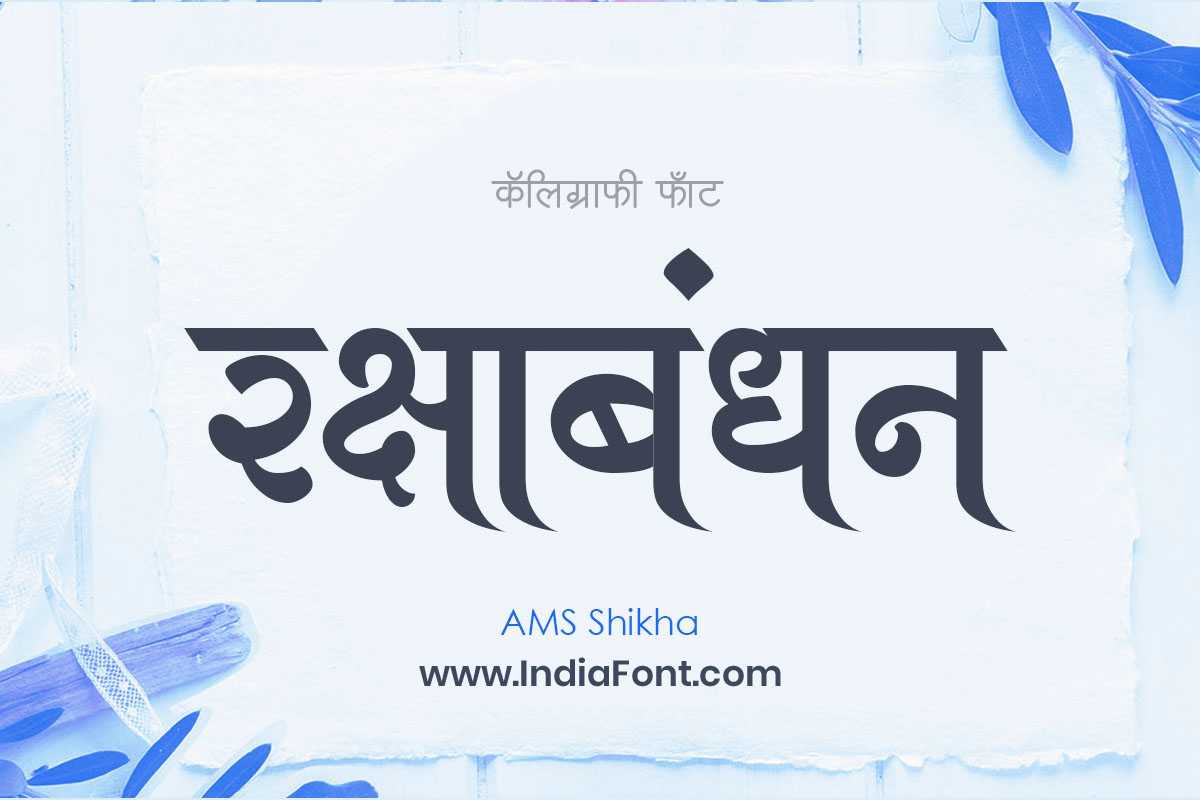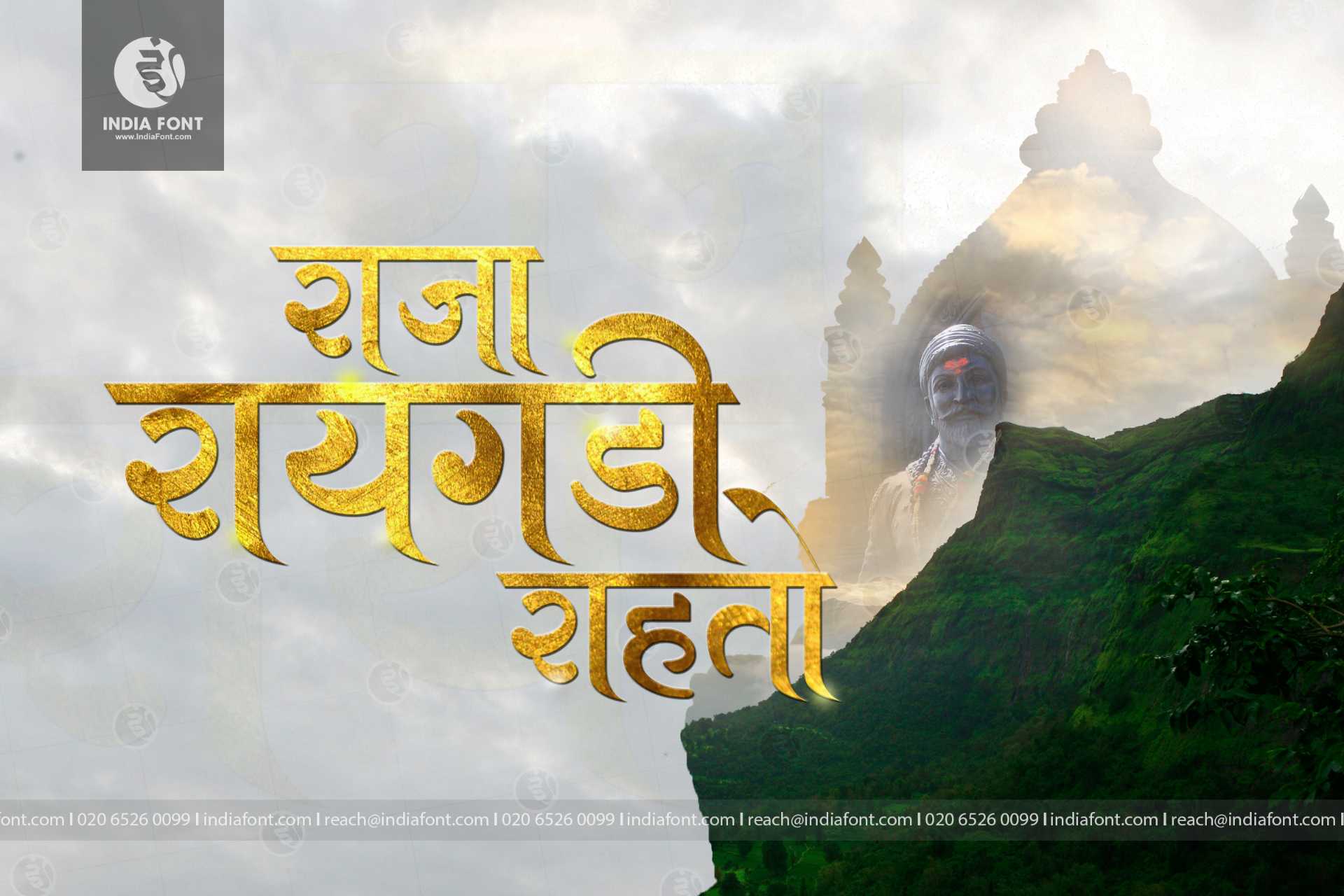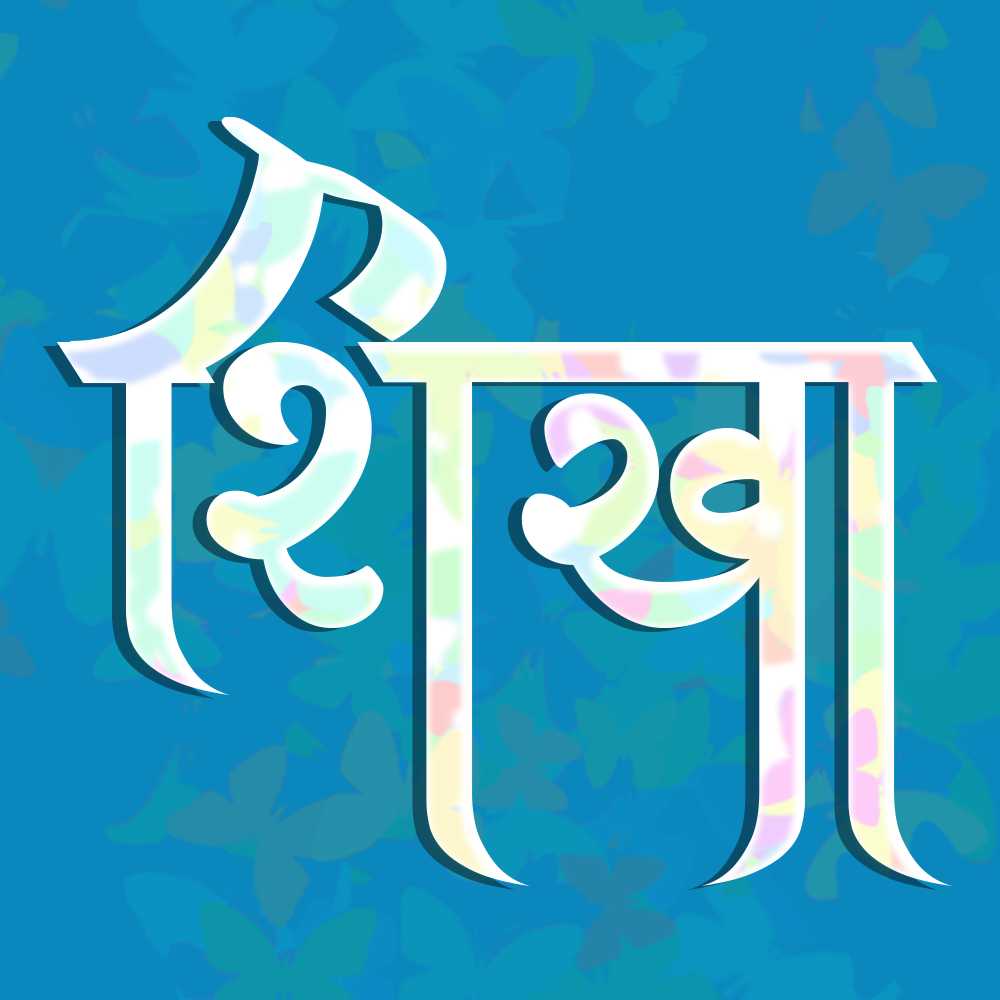
AMS Shikha
Experience the clarity and legibility of AMS Shikha, a publication font designed to deliver a seamless reading experience. Whether you're searching for stylish Hindi fonts, publication fonts suitable for magazines, or fonts available for free font download, AMS Shikha ensures your content stands out.
AMS Shikha Design Inspiration
Explore how AMS Shikha looks in real-world applications and get inspired for your next project
AMS Shikha font design inspiration and usage example
AMS Shikha typography showcase and design sample
AMS Shikha font application and style demonstration
About AMS Shikha Font
Experience the clarity and legibility of AMS Shikha, a publication font designed to deliver a seamless reading experience. Whether you're searching for stylish Hindi fonts, publication fonts suitable for magazines, or fonts available for free font download, AMS Shikha ensures your content stands out. This publication font combines elegance with functionality, making it perfect for various design applications.
AMS Shikha is a professionally crafted publication typeface that brings clarity and style to your projects. Designed with attention to detail, it supports hindi and marathi characters flawlessly.
Whether you're working on headers-titles, logos, posters, or other creative projects, AMS Shikha delivers consistent performance across both digital and print media. This carefully designed typeface ensures readability and visual appeal in all your design work.
Why Choose AMS Shikha?
AMS Shikha excels in various design scenarios. Here are the most suitable applications:
About AMS Shikha Typography Style
AMS Shikha is a professionally crafted publication font that exemplifies modern Hindi typography design. This free font is perfect for designers seeking professional branding and logo design projects.
Available in 1 weight and supporting hindi, marathi scripts, AMS Shikha offers exceptional versatility for both digital and print media. Whether you're working on headers-titles, logos, posters, this carefully designed typeface ensures consistent quality and professional results across all your typography projects.